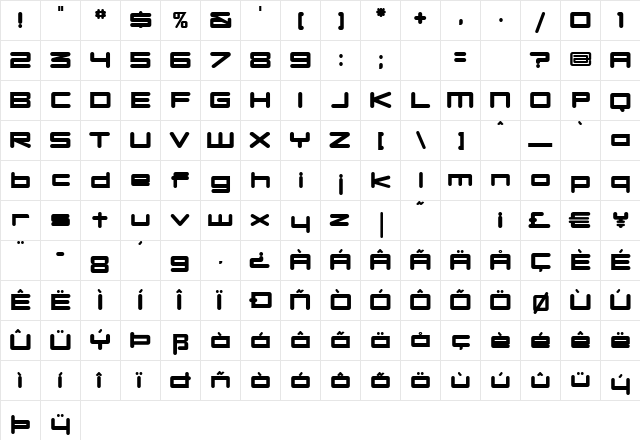
DBXLNightfever UltraWide
Design Context for DBXLNightfever Typeface
DBXLNightfever is a composed and adaptable typeface that performs quietly and consistently across a wide range of design contexts.